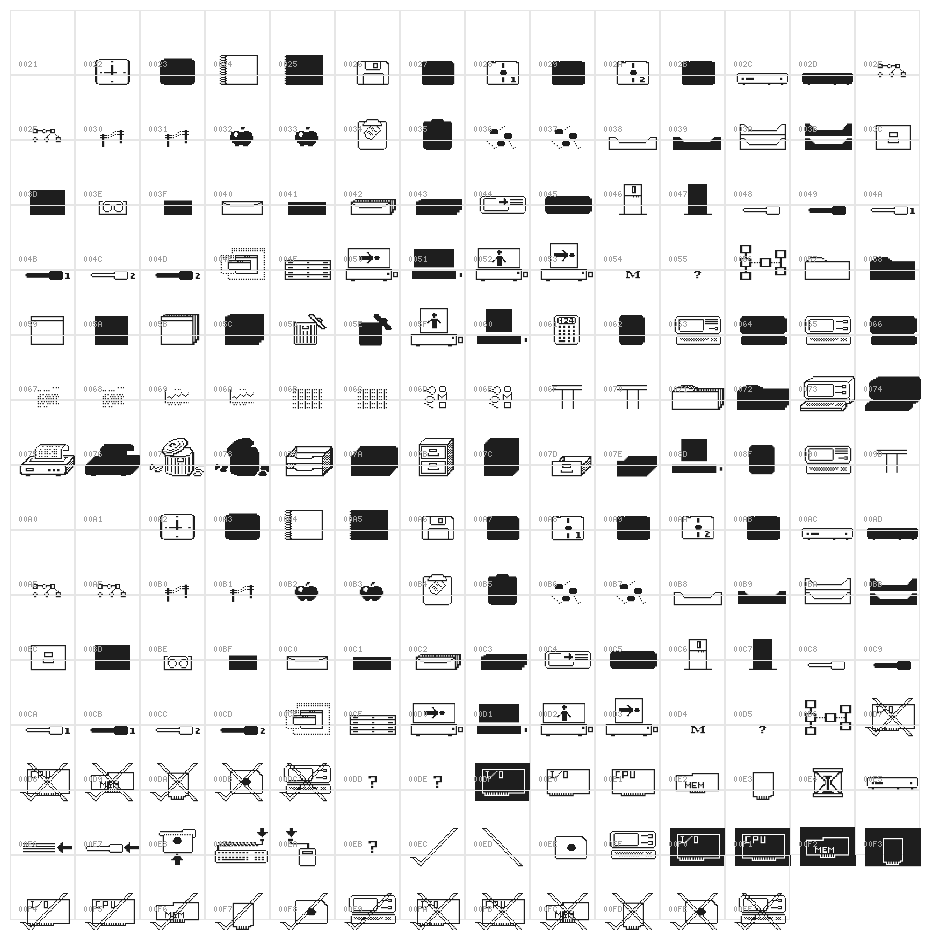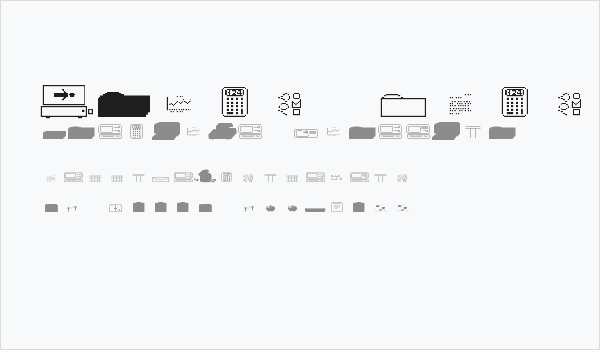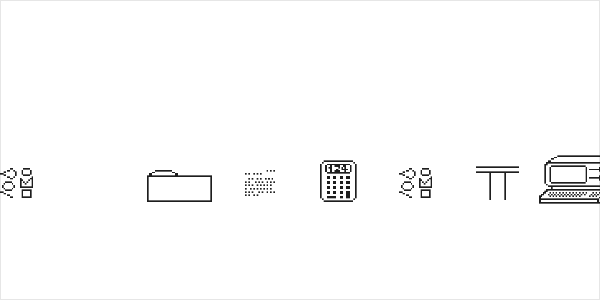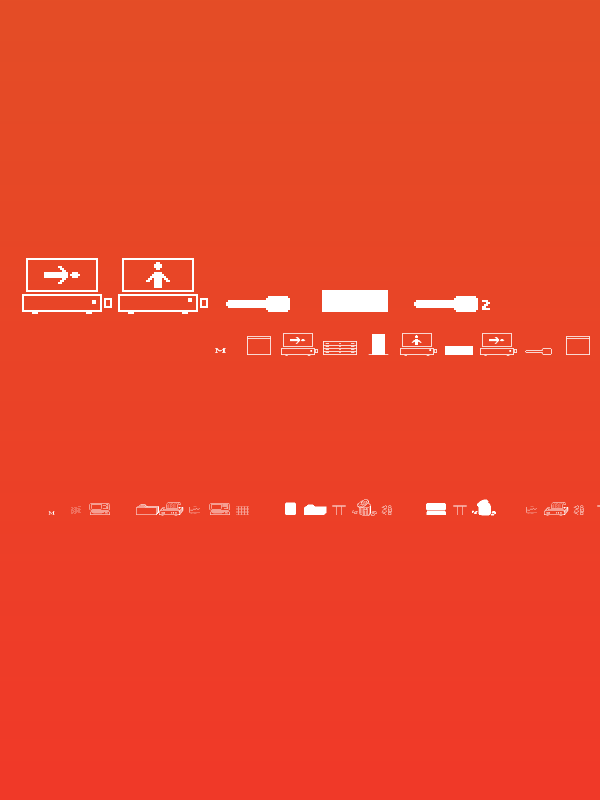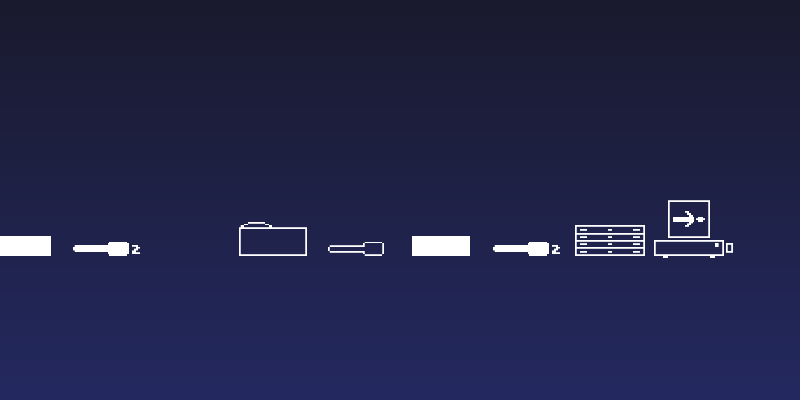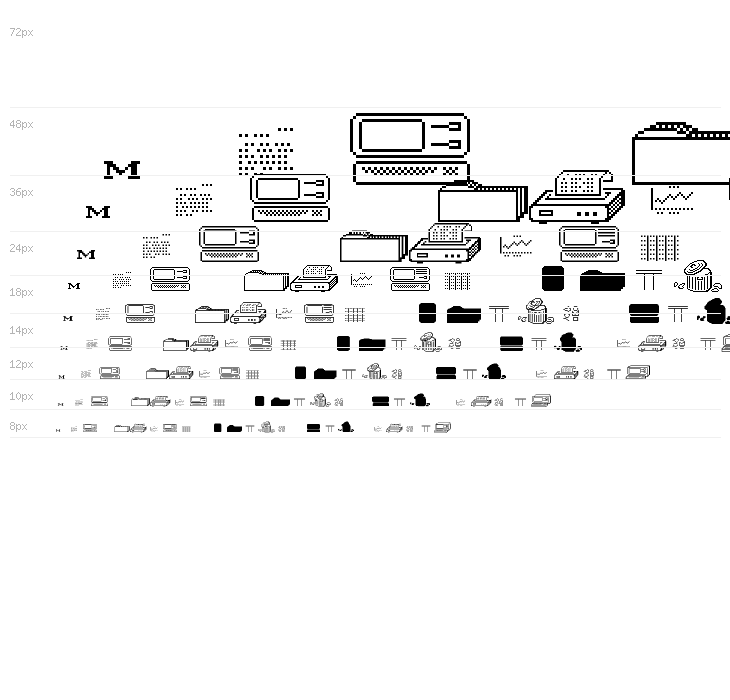
Priam Whamos Raw Font
Priam Whamos Raw Description
A collection of pixelated, monochrome icon glyphs representing various office, technology, and utility objects such as computers, printers, disks, trash cans, clipboards, and charts. The icons are simple, geometric, and designed for clarity at small sizes.
| Overall Style | Retro, Pixel Art, Decorative |
| Use Case | Icons, UI elements, infographics, decorative headings |
| Proposed Projects | User interface design, retro-themed applications, pixel art games, dashboards, infographics. |